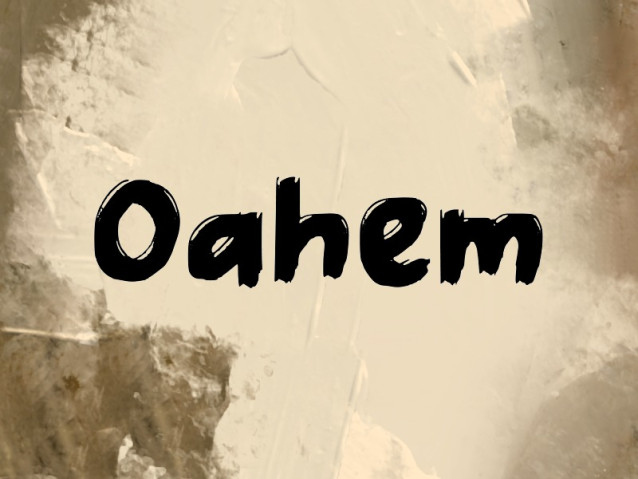
Oahem Font
Oahem Font is a simple and modern display font suitable for quotes, logos, headings, titles, and many more. Use it on any of your creative projects, and your designs will become outstanding!